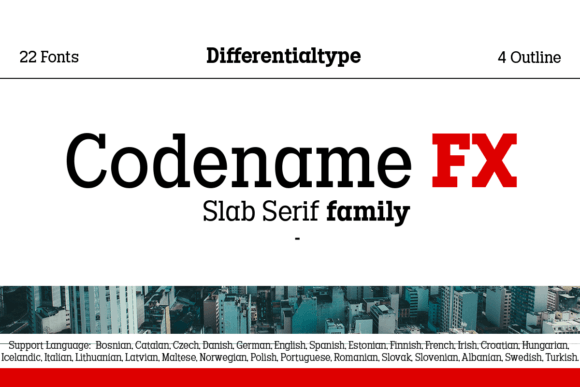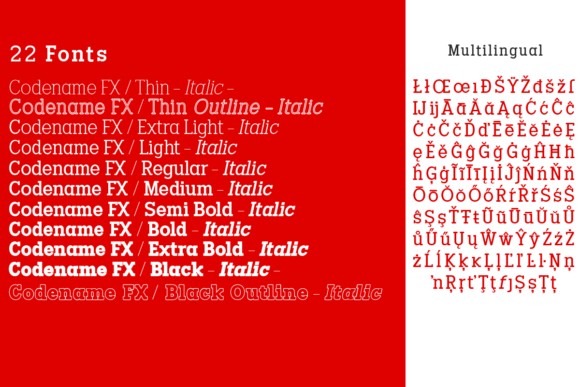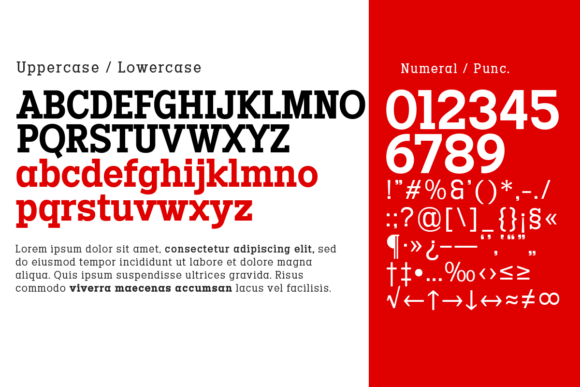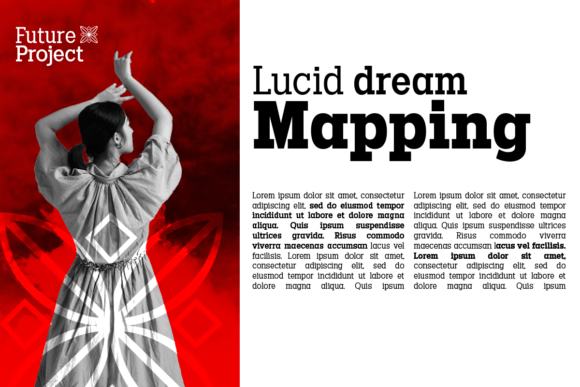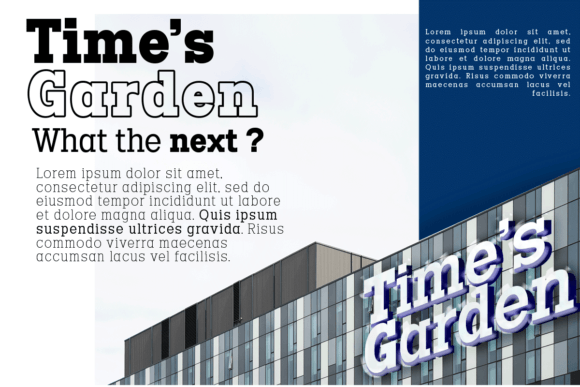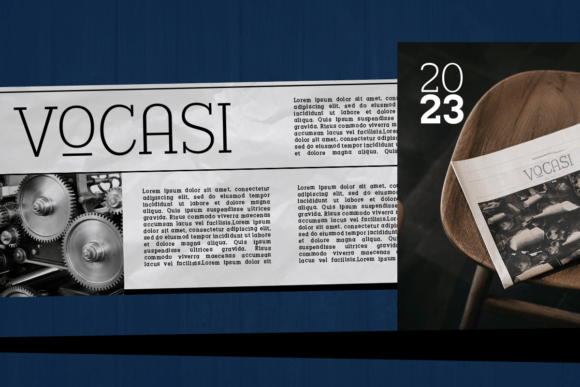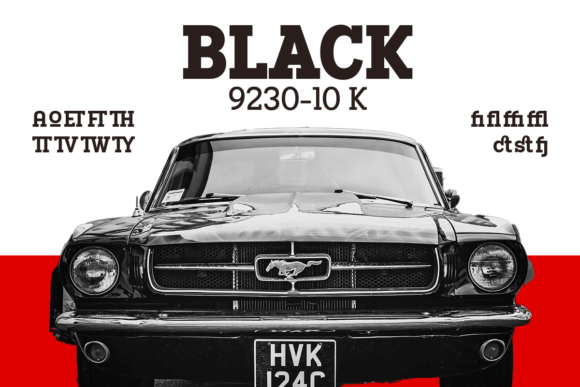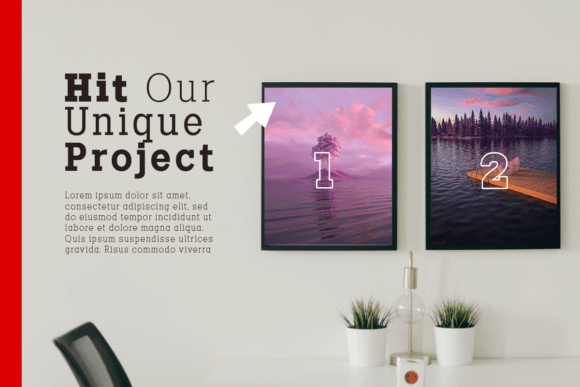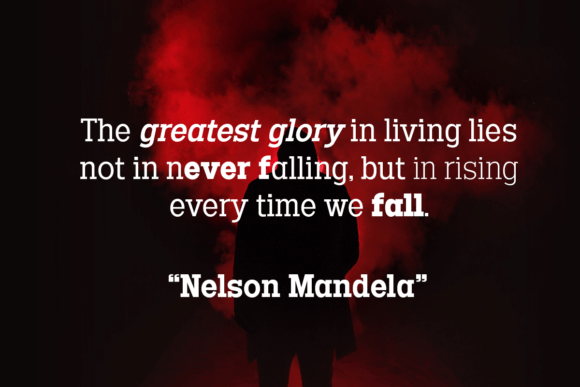
Codename Fx
About Codename Fx
Codename FX is an elegant slab serif font family. It’s perfect for any project like logos, t-shirt printing, creative products, typing, titles and many other projects.
Codename FX comes with 9 weights with italics, and some outlines to complete your variation of choice.